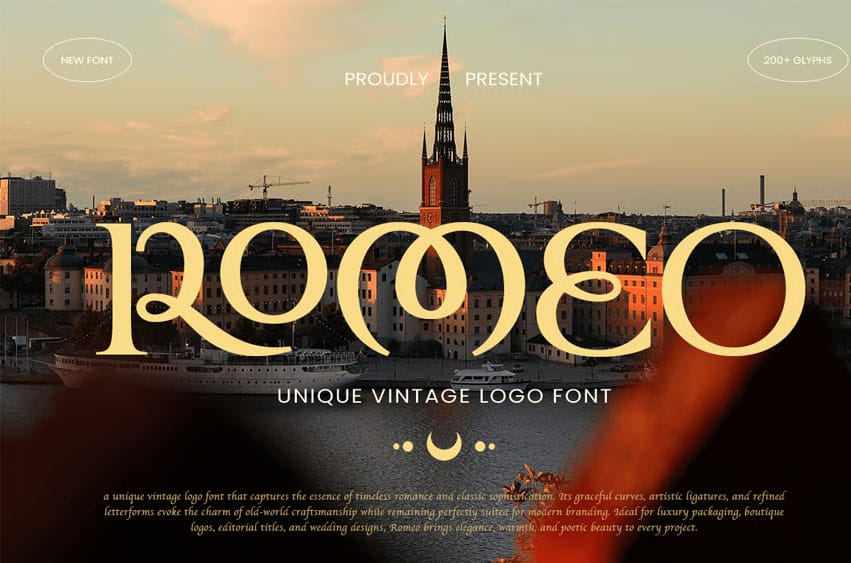
Romeo Font is a unique vintage logo font crafted to bring classic character and nostalgic confidence to your typography. With distinctive letterforms and a timeless retro feel, this font delivers a strong identity that feels authentic, bold, and memorable—perfect for brands that want a heritage-inspired voice.
Designed for logo design and brand identity, ROMEO shines on packaging, labels, badges, posters, signage, and editorial headlines. Its vintage personality makes it ideal for barbershops, coffee brands, craft goods, streetwear, motorcycle themes, and rustic or retro-inspired product lines—while still staying clean and readable across modern layouts.
Whether you’re building a classic emblem, a retro logotype, or a bold headline system, ROMEO adds instant charm and confident storytelling to any project, in both digital and print applications.
ROMEO – Vintage Logo Font Features
- Unique vintage-inspired letterforms with strong logo presence
- Perfect for brand identity, badges, labels, and packaging
- Ideal for retro logos, posters, signage, and headlines
- Distinct character that stays readable and impactful
- Includes uppercase, lowercase, numerals, and punctuation
- Great for both digital branding and print production
- OpenType features for polished typographic control